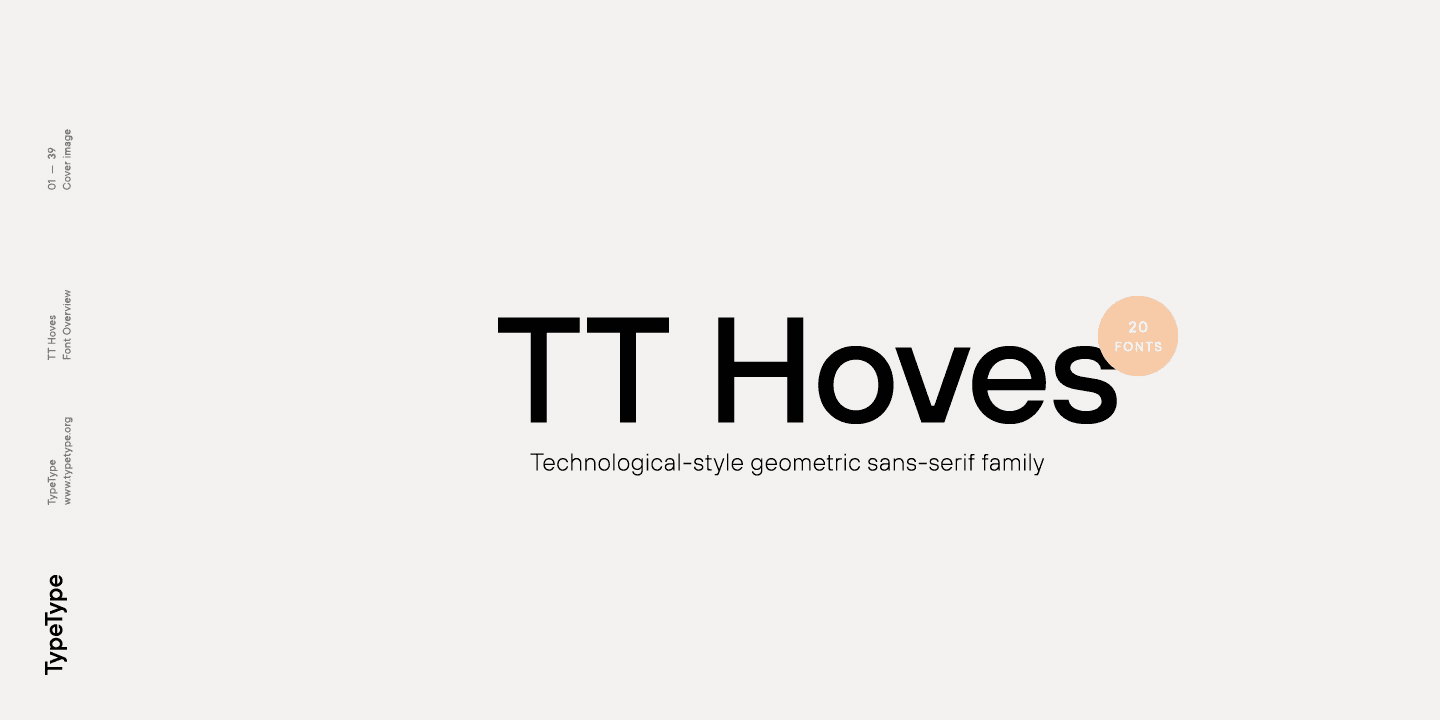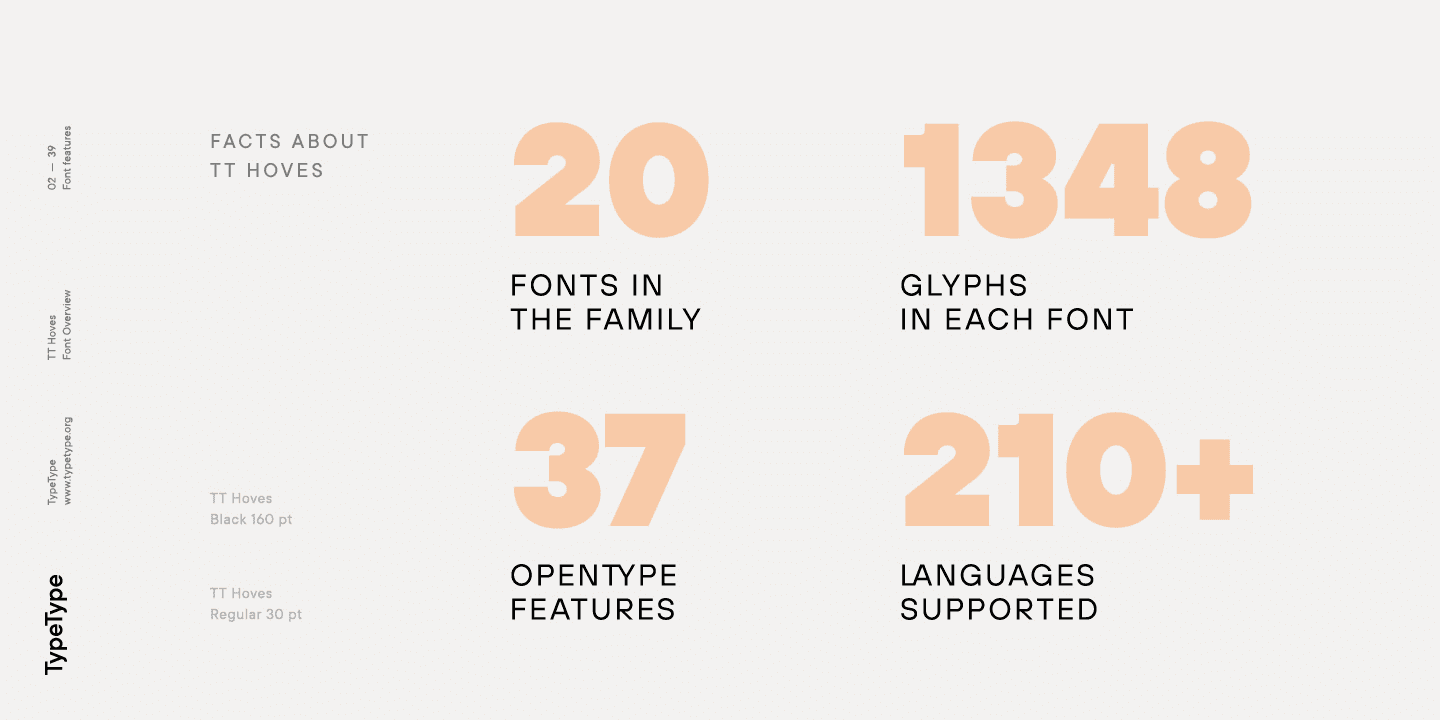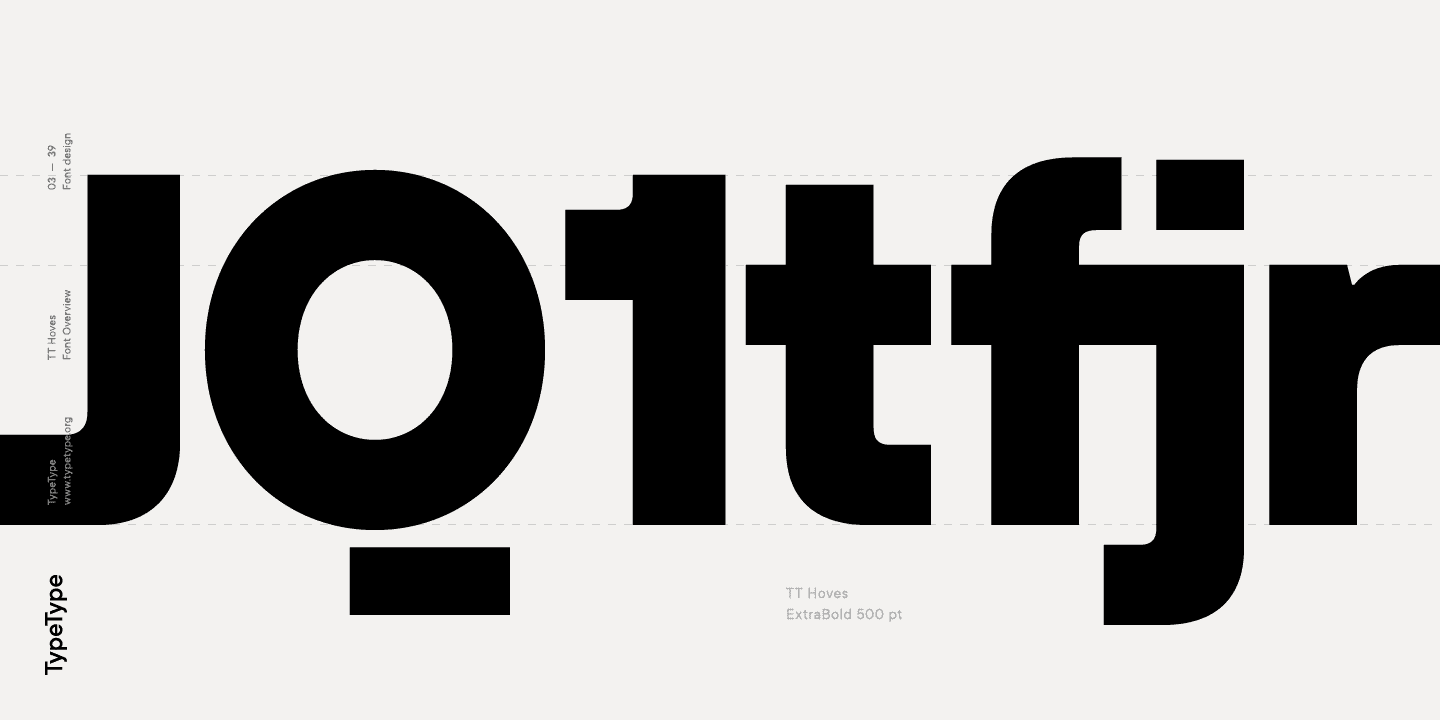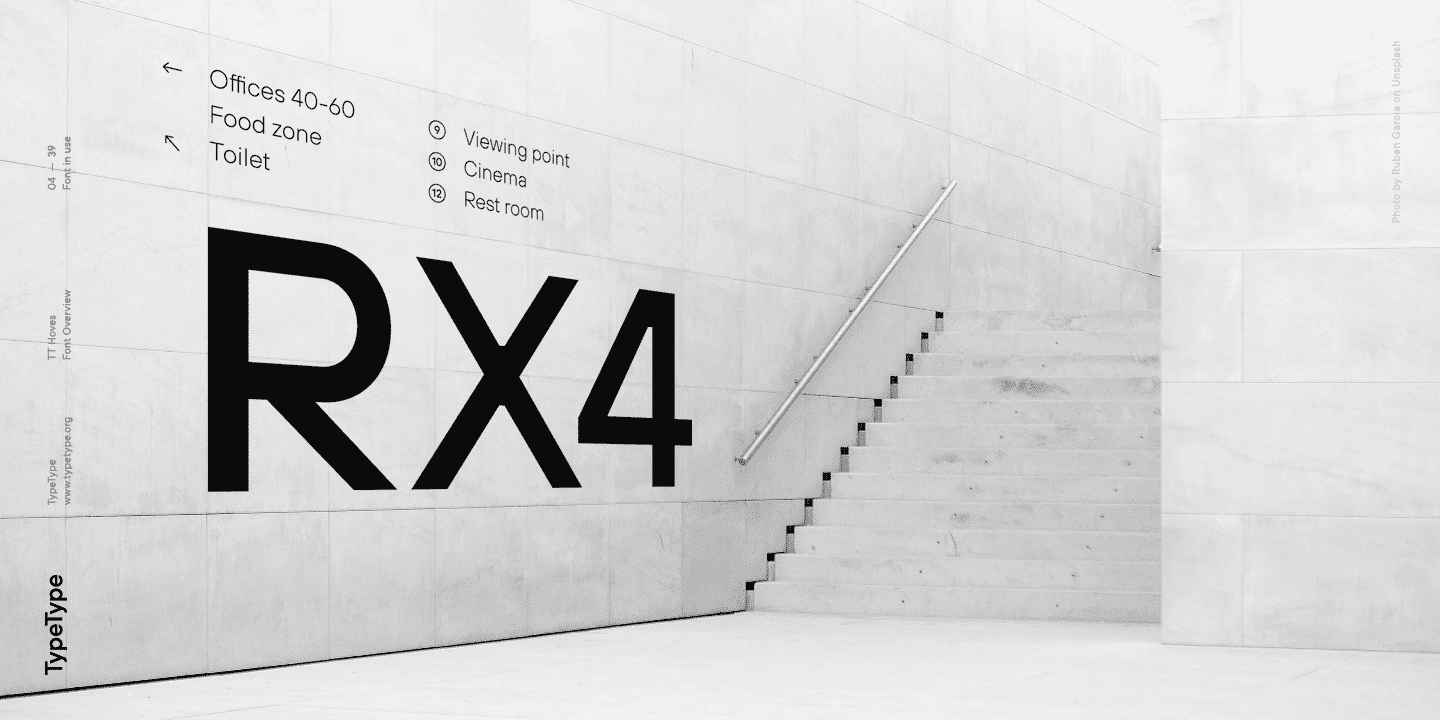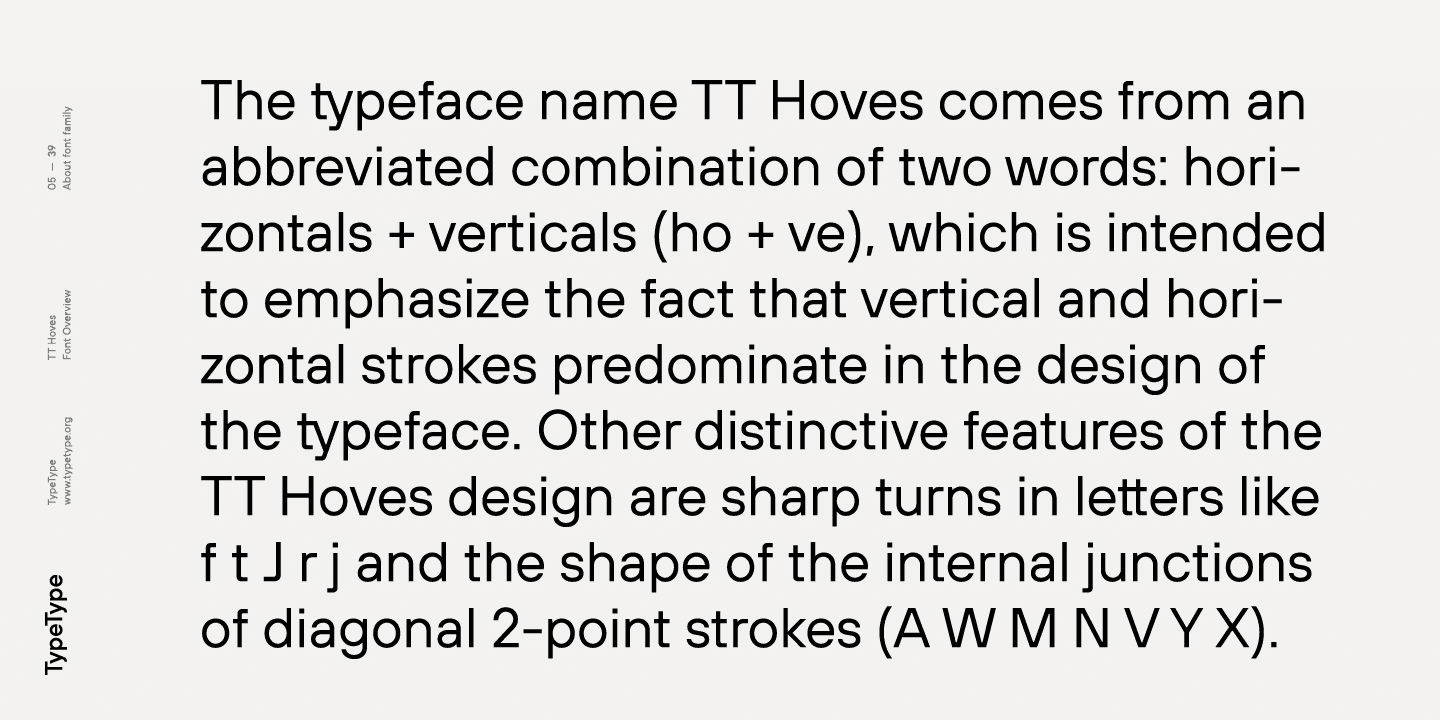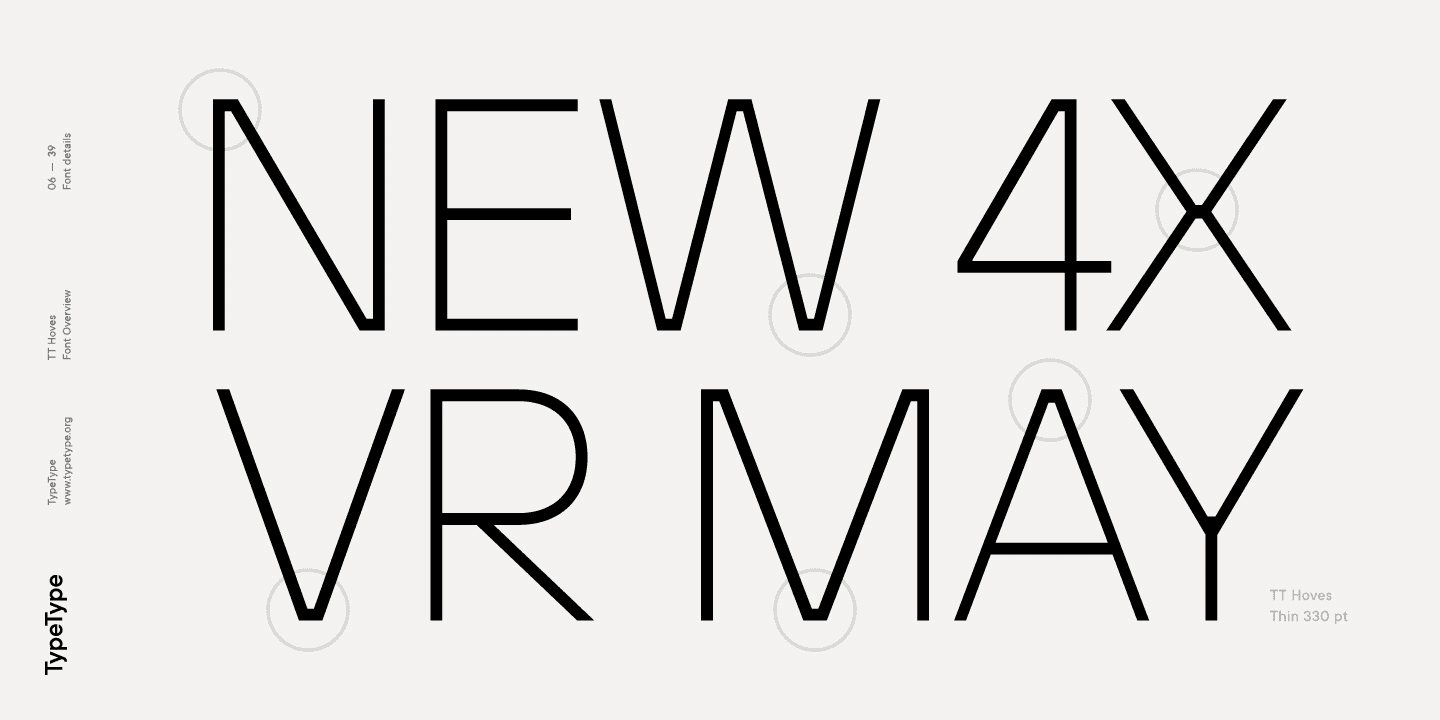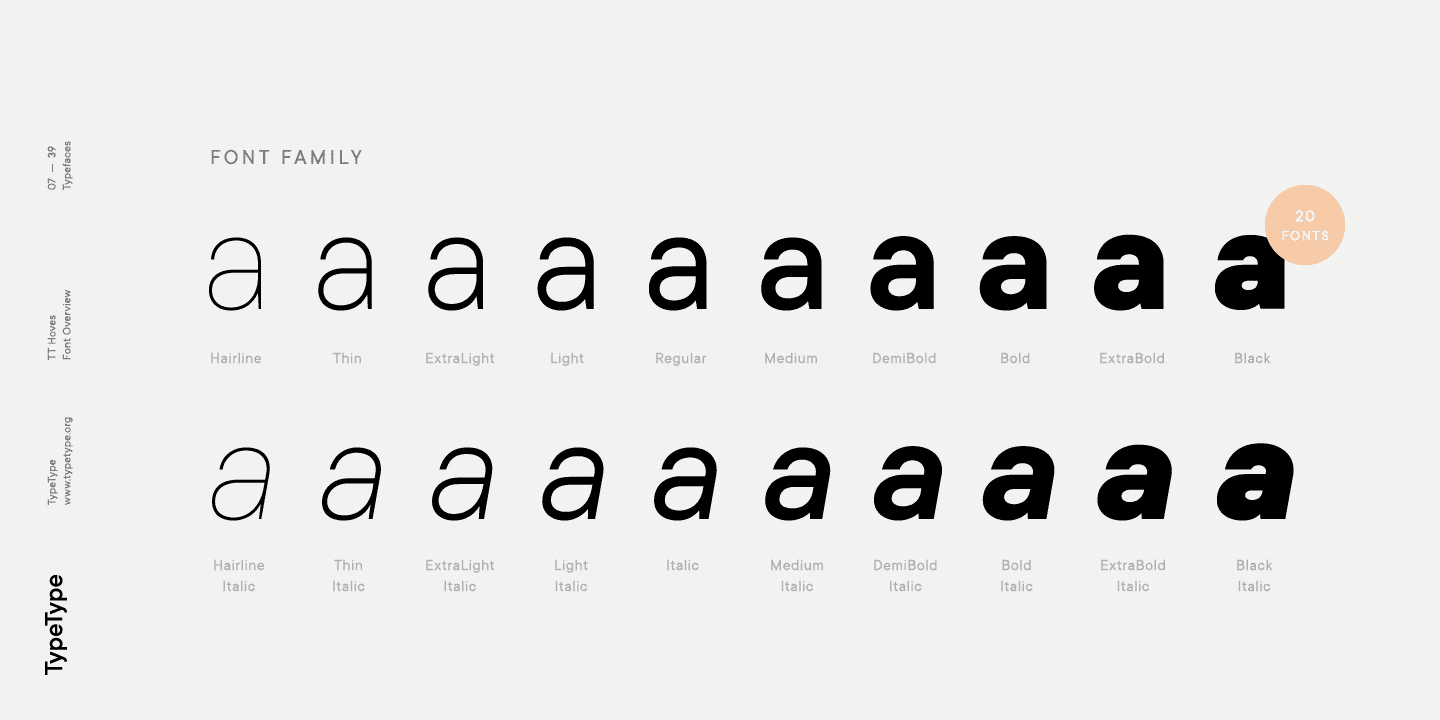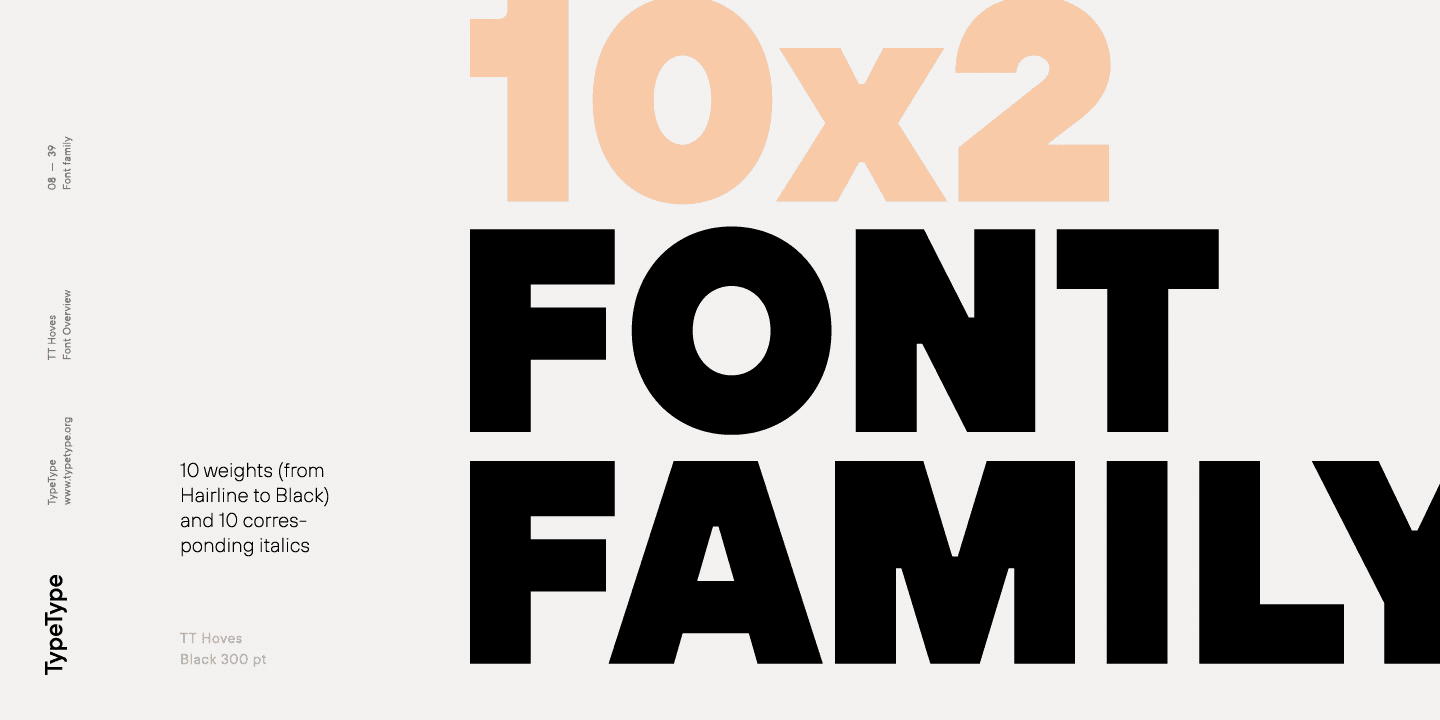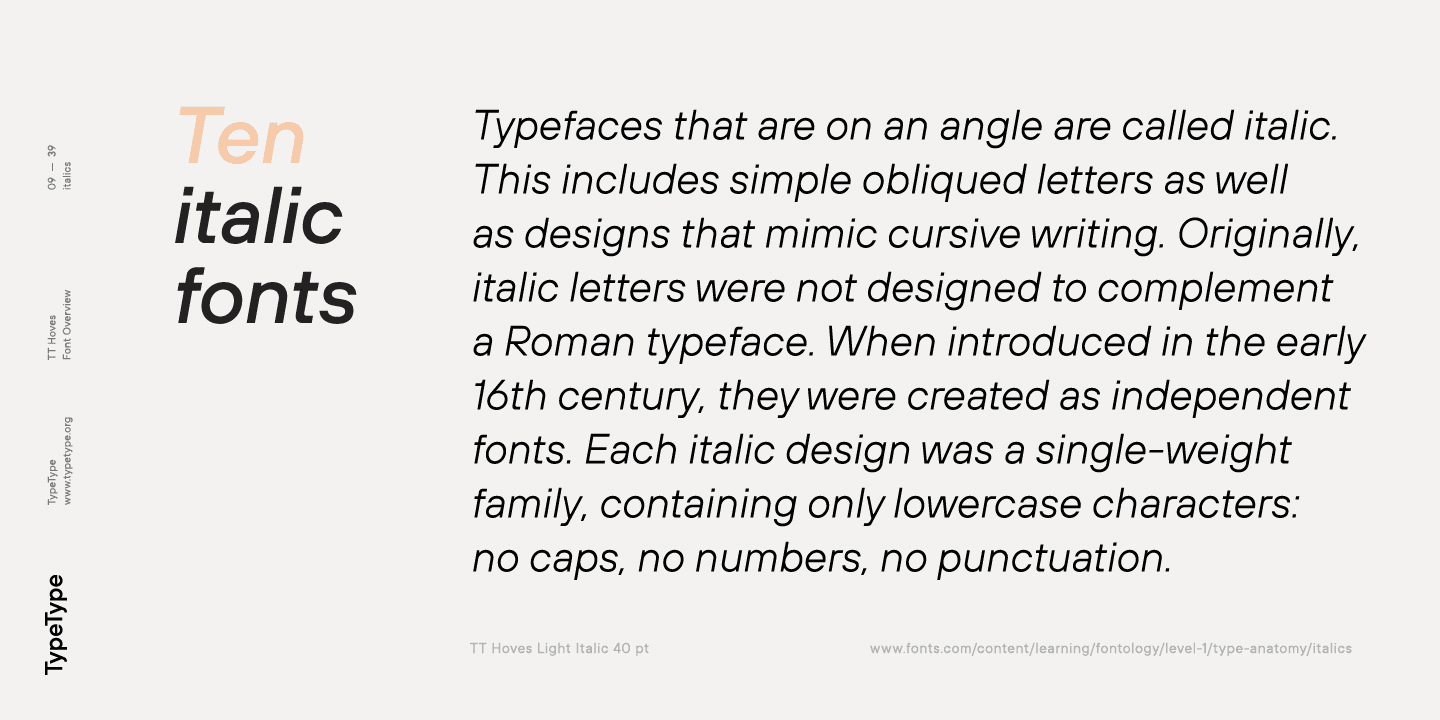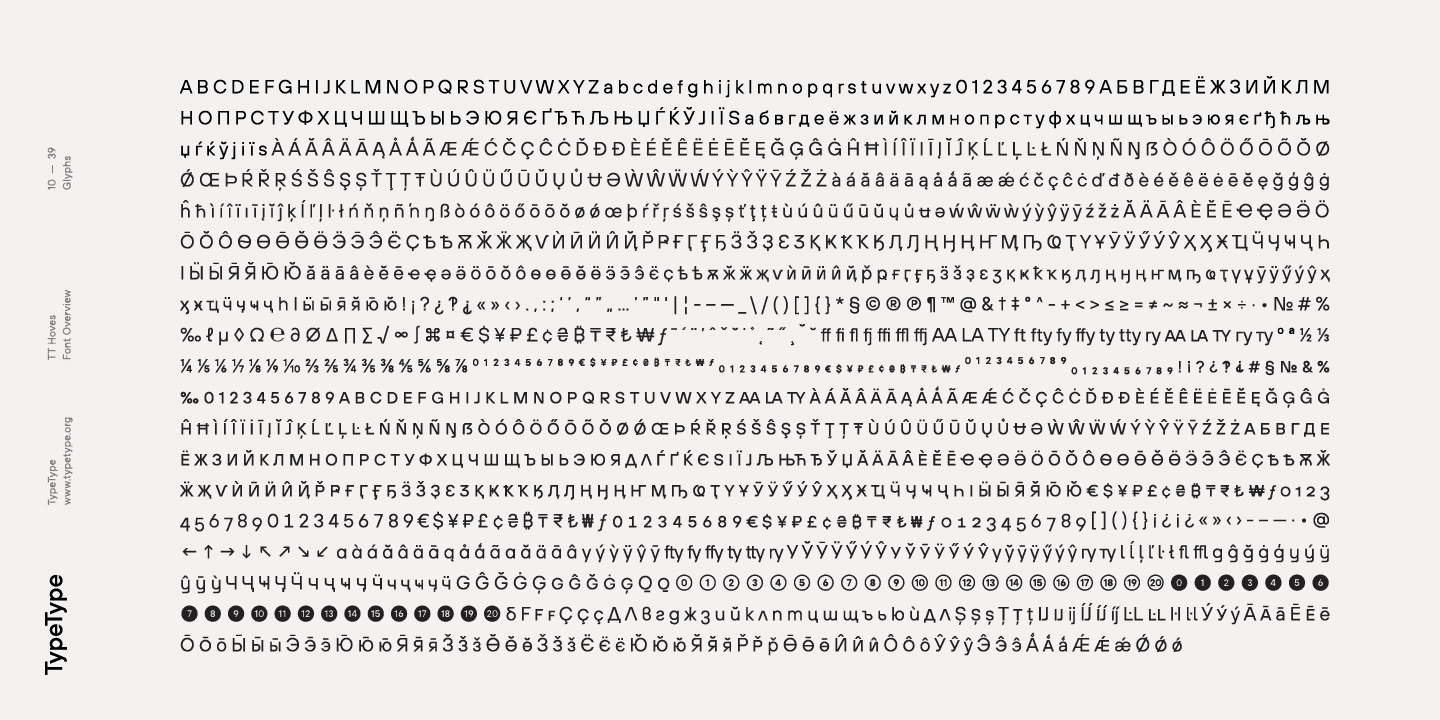
TT Hoves completes the TypeType font trilogy dedicated to modern sans serif. The first was TT Norms—the universal geometric sans for the widest possible range of tasks. The second was the neutral sans TT Commons, which was originally designed as a corporate typeface for TypeType studios.
Unlike the first two typefaces included in the trilogy, TT Hoves has a distinct character, but without too bright bursts or kinks—it’s not too neutral and is moderately bright. We wanted to create a sans serif with recognizable patterns and geometry that would be perfectly suited for solving visual problems in such areas as architecture, design, industry, science, astronomy, drawing, high tech, research, space, statistics.
The typeface name TT Hoves comes from an abbreviated combination of two words: horizontals + verticals (ho + ve), which is intended to emphasize the fact that vertical and horizontal strokes predominate in the design of the typeface. Other distinctive features of the TT Hoves design are sharp turns in letters like f t J r j and the shape of the internal junctions of diagonal 2-point strokes (A W M N V X), which is intended to add a square and technologically advanced touch to the picture. The stroke thickness tends to a single width for the entire range of styles, with natural compensations in the boldest styles.
The TT Hoves font family consists of 20 fonts: 10 weights (from Hairline to Black) and 10 corresponding italics. Each of the styles includes 1348 glyphs. TT Hoves covers almost all languages using the Latin alphabet, as well as most languages using Cyrillic. In addition, in TT Hoves you can find small capital for Latin and Cyrillic and a large number of ligatures and stylistic alternates. In order to make it more convenient for you to use stylistic alternates, we have divided them into separate stylistic sets, one letter per set.
We also did not forget about the mathematical and navigation signs, drew currency signs and added all types of numbers. A complete list of useful OpenType features that you can find in TT Hoves: zero, frac, ordn, case, c2sc, smcp, ccmp, locl, sinf, sups, numr, dnom, tnum, onum, lnum, pnum, dlig, liga, calt, salt, ss01, ss02, ss03, ss04, ss05, ss06, ss07, ss08, ss09, ss10, ss11, ss12, ss13, ss14, ss15, ss16, ss17. Separately, we would like to draw your attention to high-quality and detailed hinting, which is designed to help the typeface work well in small size and even on small screens.